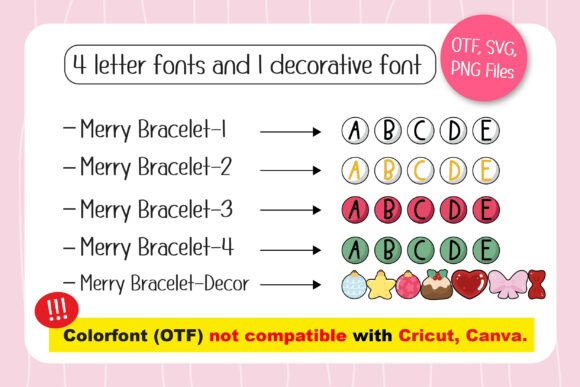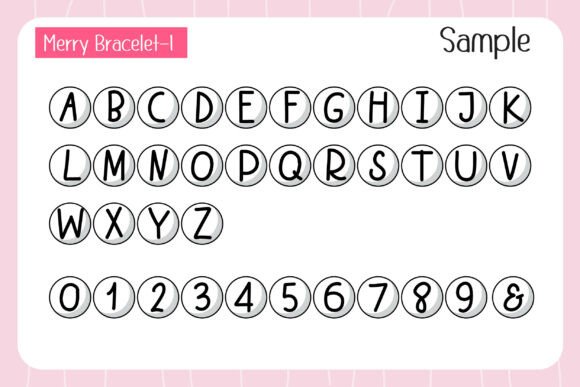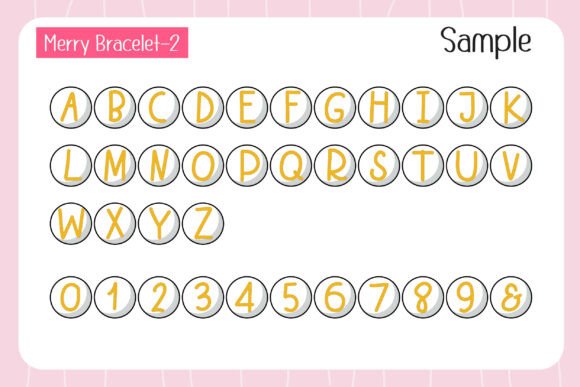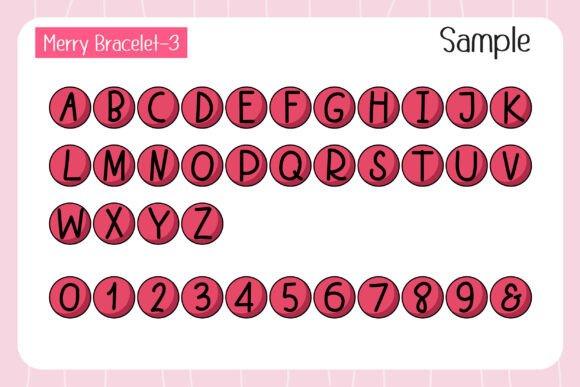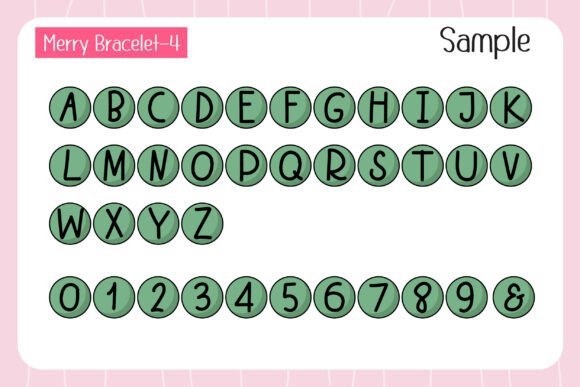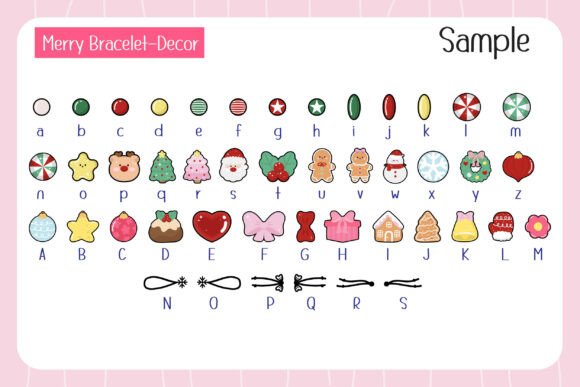
Introduction to Merry Bracelet Font
As the holiday season approaches, designers are on the lookout for that special something to add a touch of magic to their projects. For many, the spark of creativity comes when browsing through free download resources, searching for that perfect design element to elevate their work. If you’re one of those designers, then get ready to fall in love with the Merry Bracelet Font – a vibrant, high-quality color font that combines the whimsy of friendship bracelets with the joy of Christmas.
With its adorable beaded letters and festive shapes, the Merry Bracelet Font is the perfect design resource for anyone looking to create unique and eye-catching holiday projects. Whether you’re working on Christmas custom designs, posters, or DIY crafts, this font is sure to bring a cheerful touch to your work. And with its transparent background and high-quality design, you can be sure that your creations will look stunning on any surface.
Merry Bracelet Font
- High-quality design resource perfect for creative projects, including invitations, greeting cards, and more.
- Features a transparent background, allowing for easy customization and flexibility in design applications.
- Unique, whimsical design that adds a touch of festive charm to any creative project.
- Perfect for use in digital and print projects, including social media graphics, posters, and brochures.
Honest Review: Merry Bracelet Font
I recently stumbled upon the Merry Bracelet Font, and I must say it’s a lovely addition to any creative project. The font’s elegant design makes it perfect for adding a touch of sophistication to your work.
What works well: ✨ The Merry Bracelet Font comes in a high-quality design, making it ideal for professional use. It also features a transparent background, which is convenient for designers who want to create a seamless look. Additionally, it’s free to download, which is a great perk for those on a budget.
However, I did notice a few limitations: ⚠️ The font is not as versatile as some other fonts on the market, and it may not be suitable for projects that require a lot of bold text. Additionally, some users may find the font’s design to be a bit too ornate.
Overall, I think the Merry Bracelet Font is a great design resource for those looking for a high-quality, elegant font. While it may have some limitations, its unique design and free download make it a great addition to any designer’s toolkit.
Merry Bracelet Font
The Merry Bracelet Font is a free design resource perfect for adding a touch of elegance to your creative project. With its high-quality, intricate design, this font is ideal for a variety of applications.
To get the most out of the Merry Bracelet Font, try using it in combination with other design elements, such as images and graphics. You can also experiment with different font sizes and styles to create a unique look.
The Merry Bracelet Font is perfect for a variety of applications, including wedding invitations, holiday cards, and other creative projects. Its high-quality design and transparent background make it easy to use in a variety of settings.
Yes, the Merry Bracelet Font has a transparent background, making it perfect for use in designs with complex backgrounds. This feature allows you to easily combine the font with other design elements, such as images and shapes.